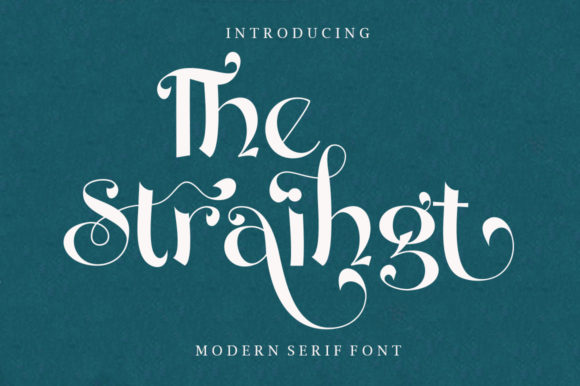
Introducing The Straihgt Font, a remarkable serif font that will add a touch of sophistication and elegance to your designs. Meticulously crafted by Shape Studio, The Straihgt Font boasts a unique and eye-catching aesthetic that is sure to leave a lasting impression.
With its perfectly balanced and visually appealing characters, The Straihgt Font is incredibly versatile and complements a vast array of design styles. Whether you're creating logos, branding materials, invitations, or any other creative project, this font will elevate your designs to the next level.
One of the standout features of The Straihgt Font is its exceptional performance when used for bold numbers. The characters are designed with precision and clarity, ensuring optimal readability and visual impact. This makes it an ideal choice for financial reports, infographics, and other data-heavy presentations.
But wait, there's more! The Straihgt Font is PUA encoded, providing you with effortless access to a comprehensive range of glyphs and swashes. This opens up endless possibilities for customization and creativity, allowing you to add a personal touch to your designs.
So, why settle for ordinary fonts when you can have the extraordinary? The Straihgt Font is the perfect choice for designers who demand excellence and originality. Its versatility, visual appeal, and exceptional performance make it a must-have for any creative toolkit.